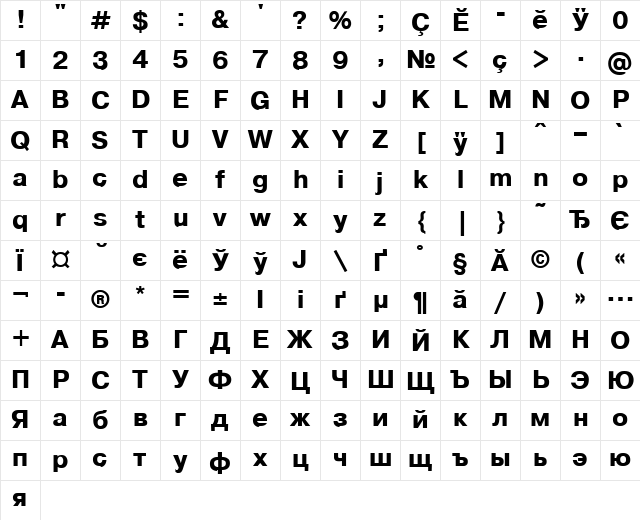
Complete Pragmatica BoldChvFVI Bold glyph index. Displaying only characters natively supported by Pragmatica BoldChvFVI Bold font.
Pragmatica BoldChvFVI is a composed and adaptable typeface that performs quietly and consistently across a wide range of design contexts. Its bold stroke weight gives it real presence on the page.